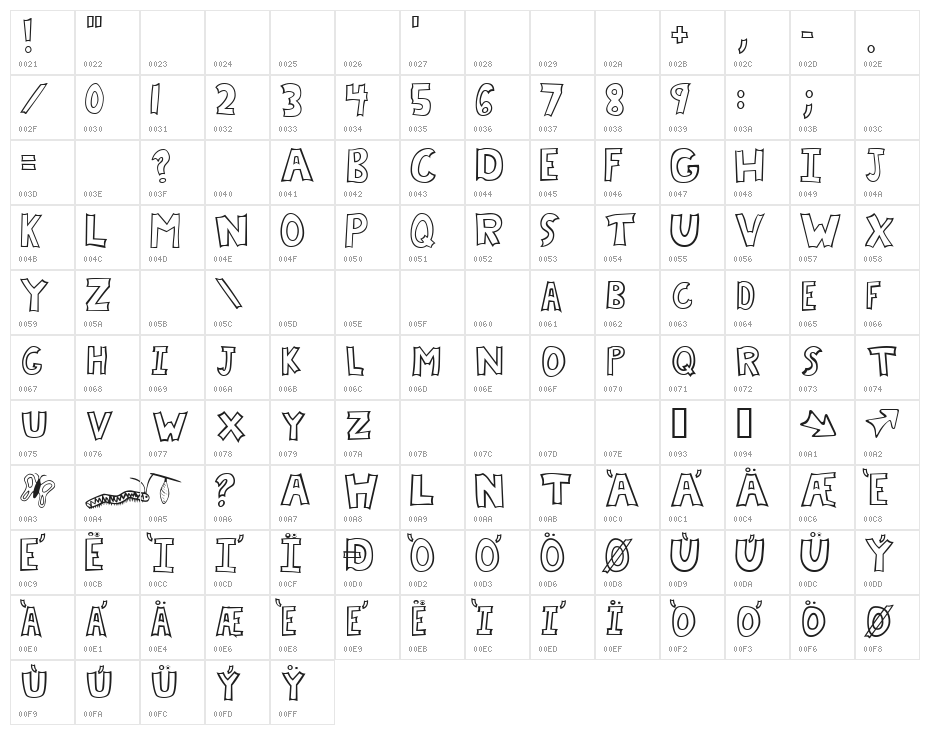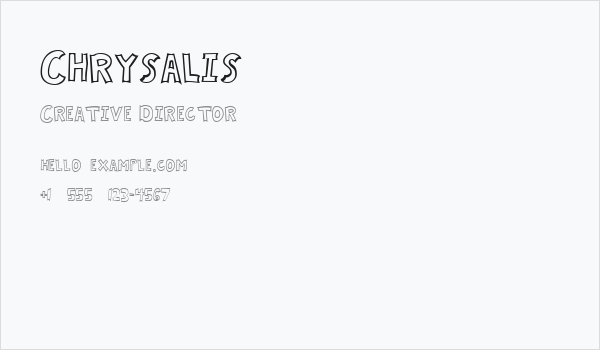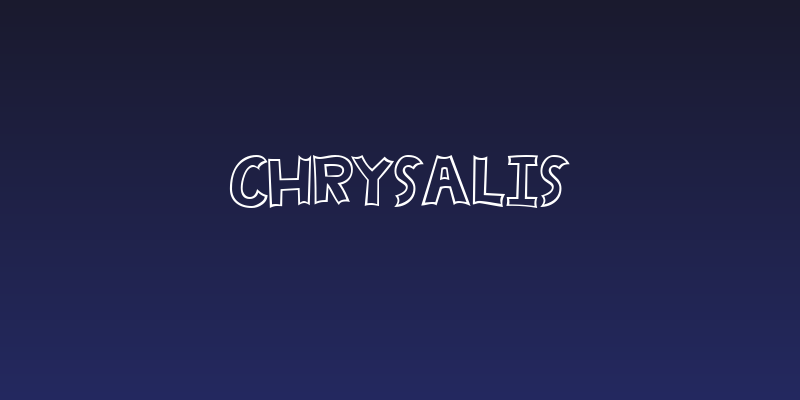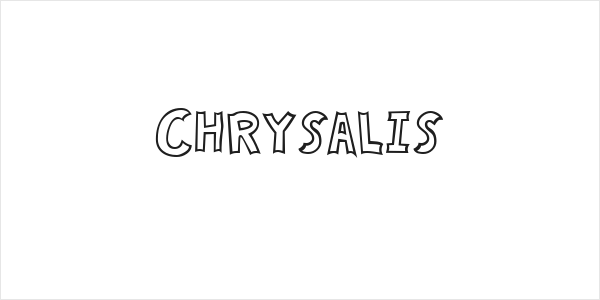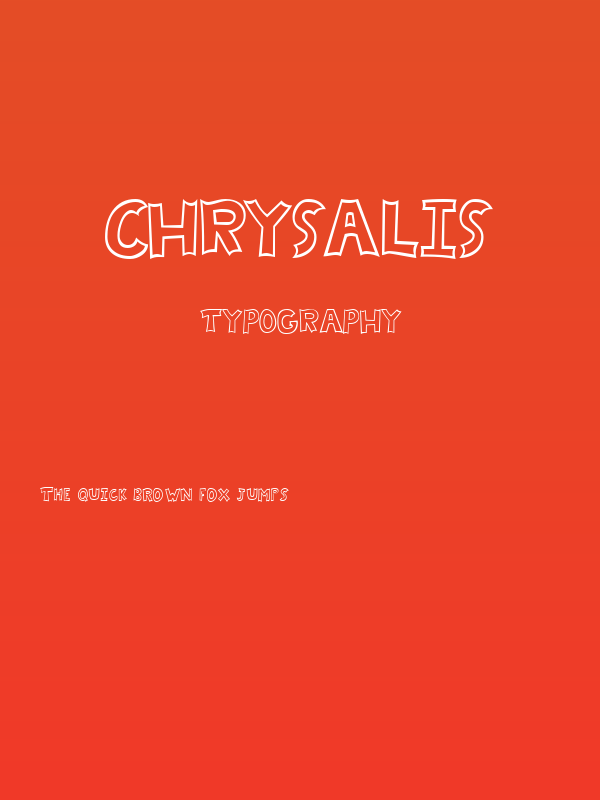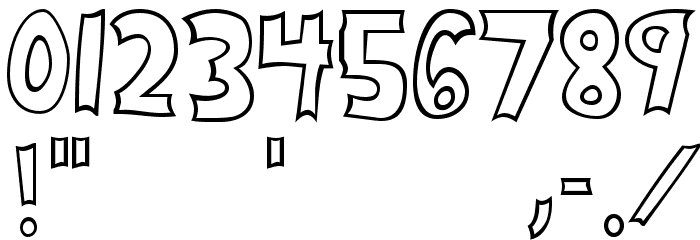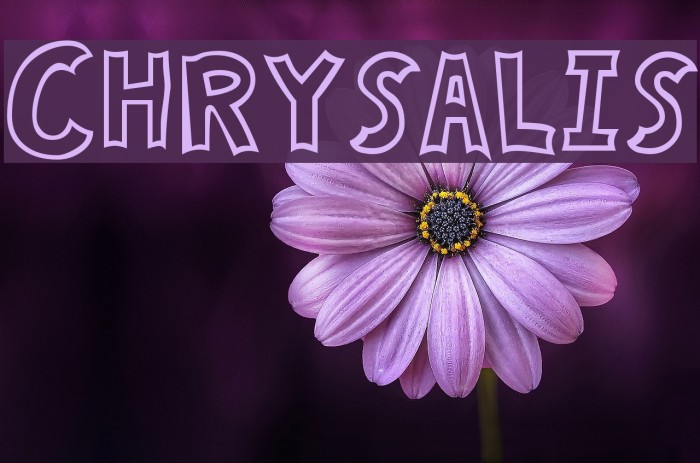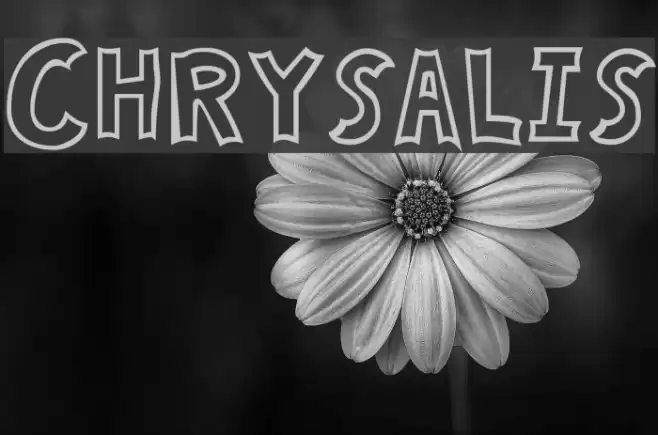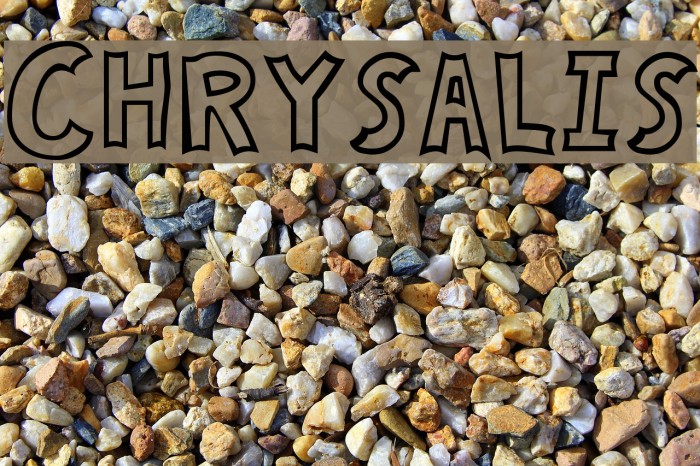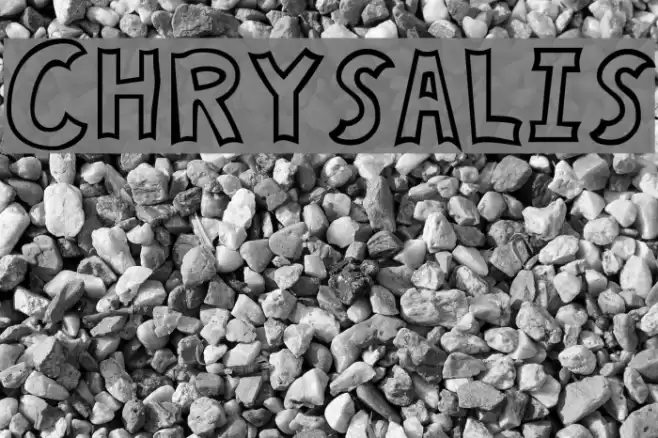
Chrysalis Font
Chrysalis Description
This font features a playful and bold design, characterized by its thick outlines and slightly irregular shapes that give it a hand-drawn appearance. The uppercase and lowercase letters maintain a consistent style, with exaggerated curves and angles that add a whimsical touch. The numbers and special characters follow the same design principles, ensuring a cohesive look across all elements. The font's unique style makes it stand out, making it ideal for creative and informal projects. Its boldness and distinctiveness are perfect for capturing attention and conveying a sense of fun and creativity.
| Overall Style | Playful, Whimsical |
| Use Case | Headlines, Posters, Branding |
| Proposed Projects | Ideal for children's books, comic strips, posters, and playful branding. |